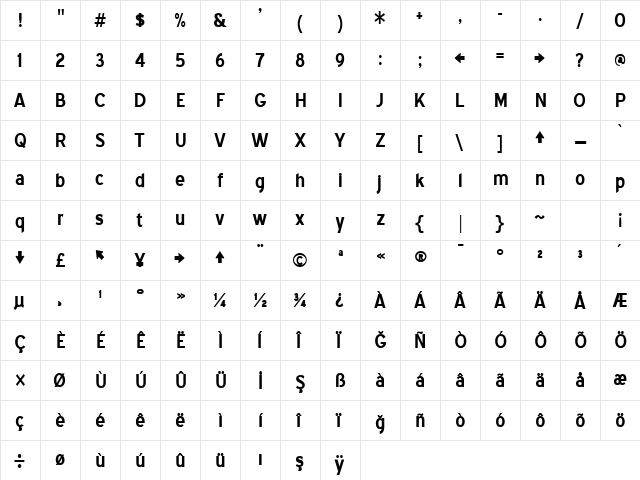
TR Blue Highway Bold Font Preview
TR Blue Highway Bold
Design Context for TR Blue Highway Typeface
TR Blue Highway is a composed and adaptable typeface that performs quietly and consistently across a wide range of design contexts. Its bold stroke weight gives it real presence on the page.